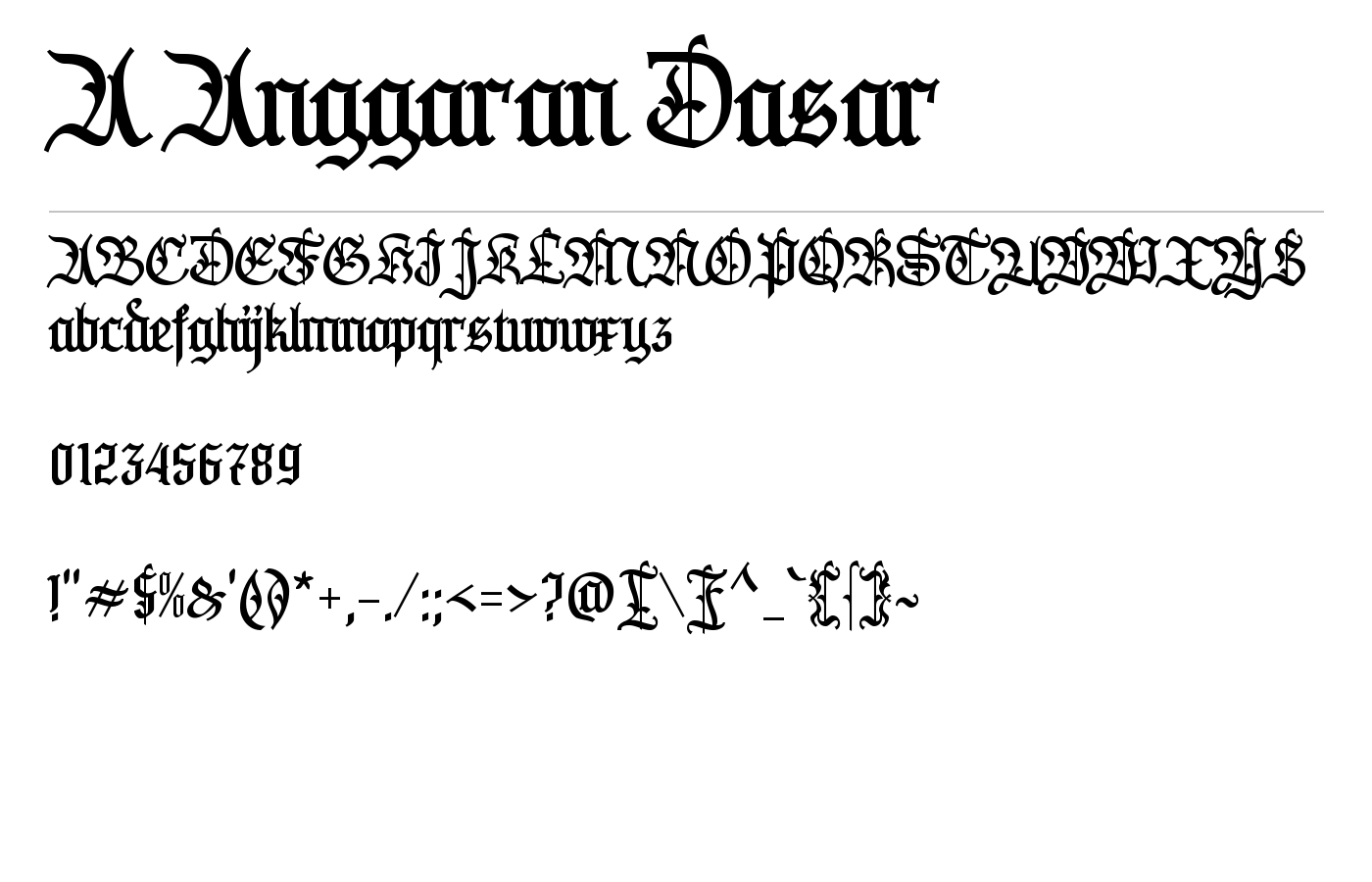
A Anggaran Dasar is a blackletter serif font with intricate, sharp strokes and high contrast between thick and thin lines. This ornate style conveys a historic, formal, and gothic feel, making it ideal for decorative uses like logos, headlines, or vintage-inspired design projects where a dramatic and traditional tone is desired. Its detailed letterforms suit branding or editorial work that seeks to evoke a sense of heritage and sophistication.
A Anggaran Dasar Font
About A Anggaran Dasar Font